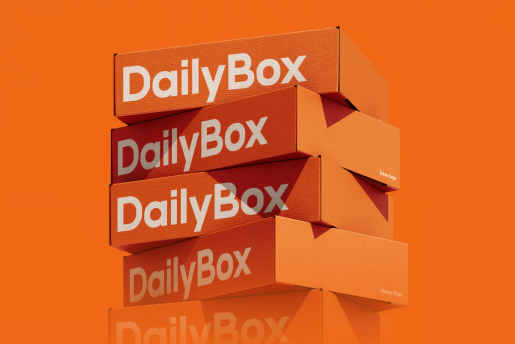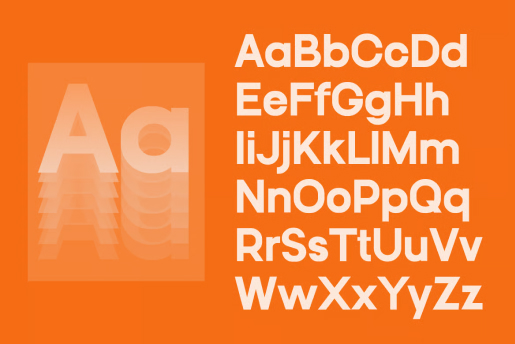
Grave Modern Sans Serif Font
Grave is a modern sans serif display font with a geometric foundation and rounded edges that combine clarity with bold expression. Its wide proportions and smooth curves create a lively, high-energy vibe perfect for social media, tech branding, and youth-focused packaging. Designed to grab attention instantly, Grave suits dynamic layouts and high-contrast designs. It’s the ideal choice for brands seeking a confident, memorable presence.